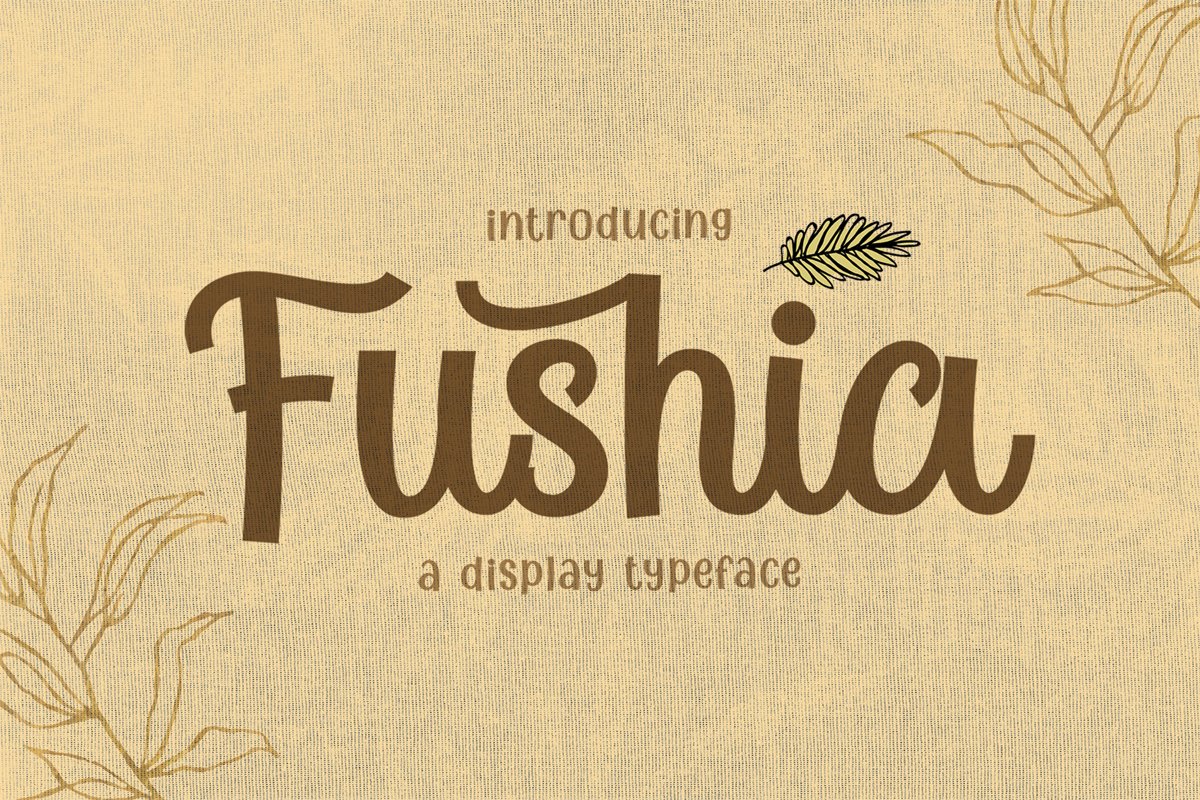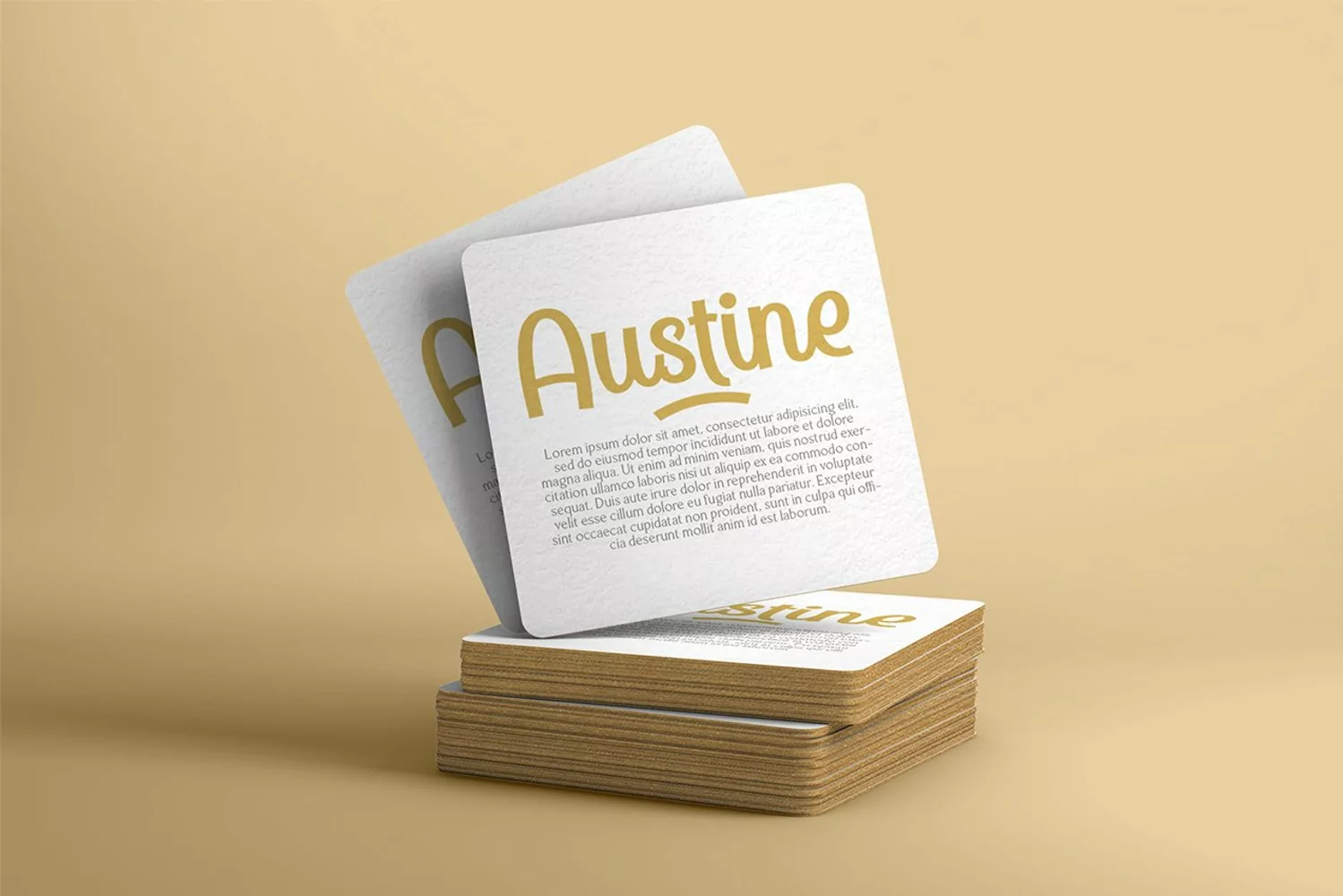
Fushia is a display typeface. Perfect for display, quotes, business card, logotype, logo, merchandise, packaging, price tag, crafting needs, branding, emblem, badges, sticker, and many more.